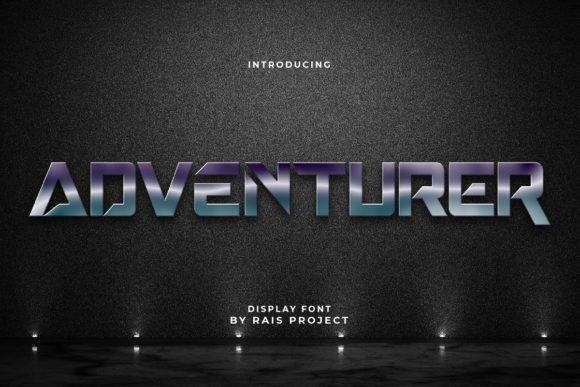
I still remember the design project that led me to discover the Adventurer font. I was working on a sleek web design for a tech startup, and I was struggling to find the right font that would convey their modern and innovative vibe. That’s when I stumbled upon Adventurer – a cool, assertive, and robotic display font that instantly caught my attention.
An Honest Review of Adventurer Font
What I Love About Adventurer ✨
- ✅ Modern and sleek design: Adventurer’s clean lines and geometric shapes make it perfect for modern designs.
- ✅ Highly legible: Even at small sizes, Adventurer remains clear and easy to read.
- ✅ Versatile: It works well for headings, titles, and even short paragraphs.
- ✅ OpenType features: Adventurer supports a range of OpenType features, including stylistic alternates and glyphs.
- ⚠️ Limited use for body text: While Adventurer is legible, it’s not ideal for long blocks of text due to its bold and modern style.
- ⚠️ No italic version: Currently, Adventurer only comes in a single style, which might limit its use in certain designs.
The Story Behind Adventurer
Adventurer was designed with the modern designer in mind. Its creator aimed to craft a font that would be both assertive and elegant, perfect for headlines and titles. Inspired by robotics and futuristic designs, Adventurer brings a touch of innovation to any project.
| Font Name | Adventurer Font |
| Author | RaisProject |
Q: What type of projects is Adventurer best suited for?
A: Adventurer is ideal for projects that require a modern touch, such as web designs, business cards, brochures, and posters.
Q: Can I use Adventurer for body text?
A: While Adventurer is legible, it’s not recommended for long blocks of text due to its bold style. It’s best used for headings and titles.
Q: Does Adventurer support OpenType features?
A: Yes, Adventurer supports a range of OpenType features, including stylistic alternates and glyphs, which can be accessed through compatible design software.